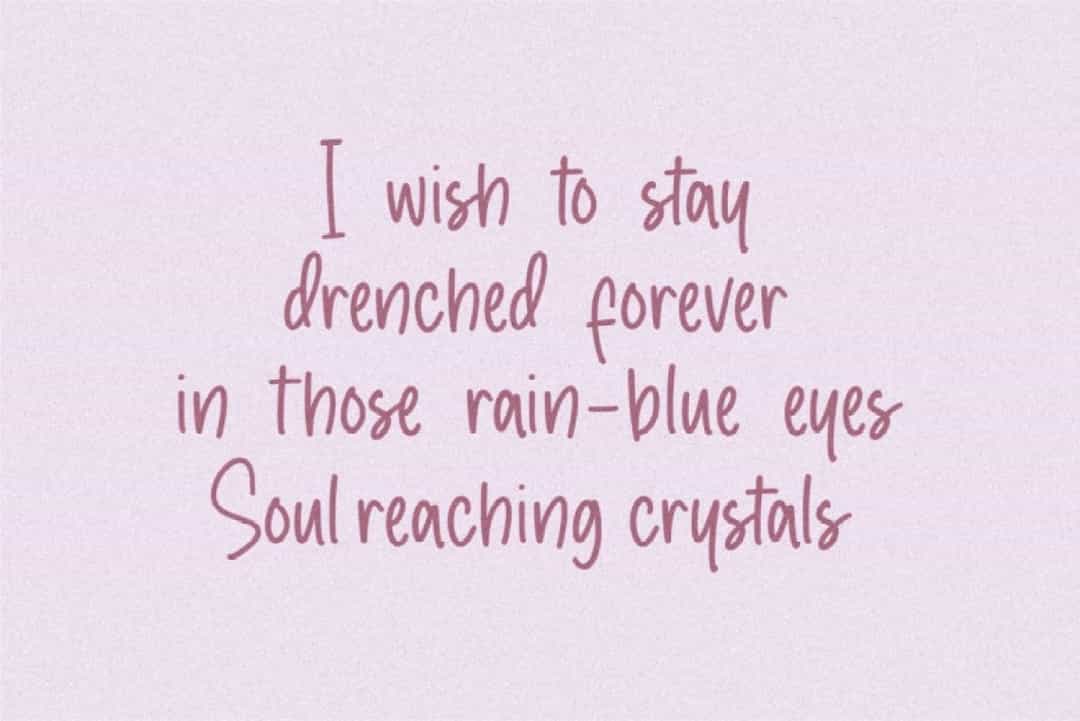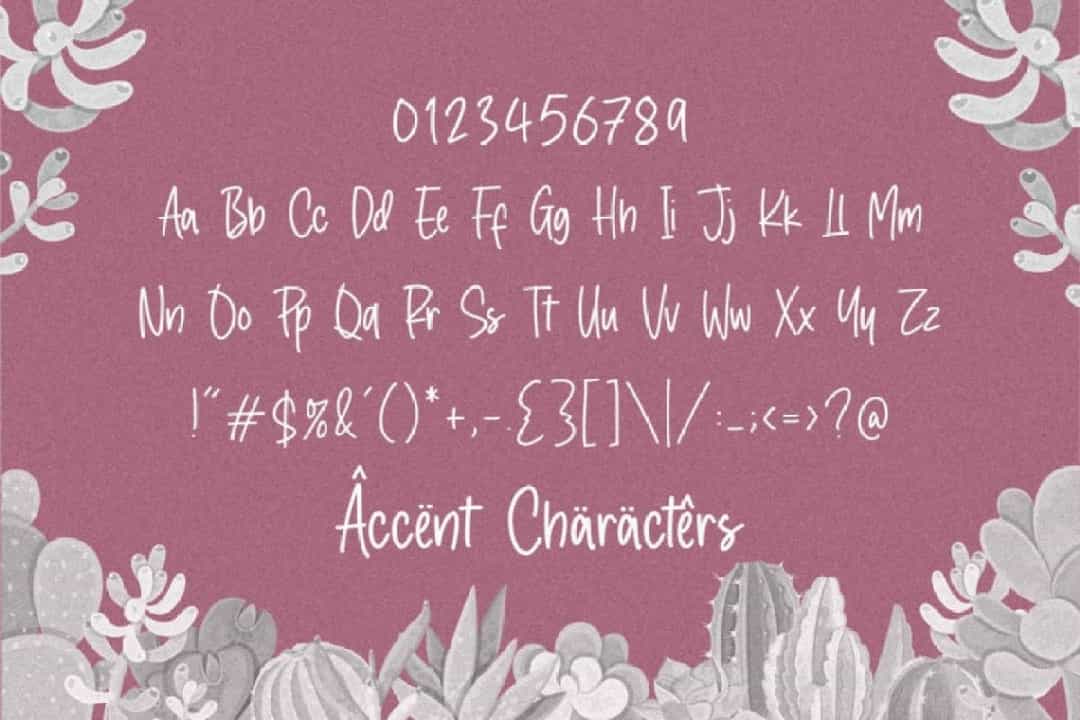
Crystal Angles is a modern Monoline font with script style for today’s use. Perfect for packaging, branding, products, magazines, wedding invitations, social media content, and any words you want to place on any background Crystal Angles is now available in TTF files with multilingual support!